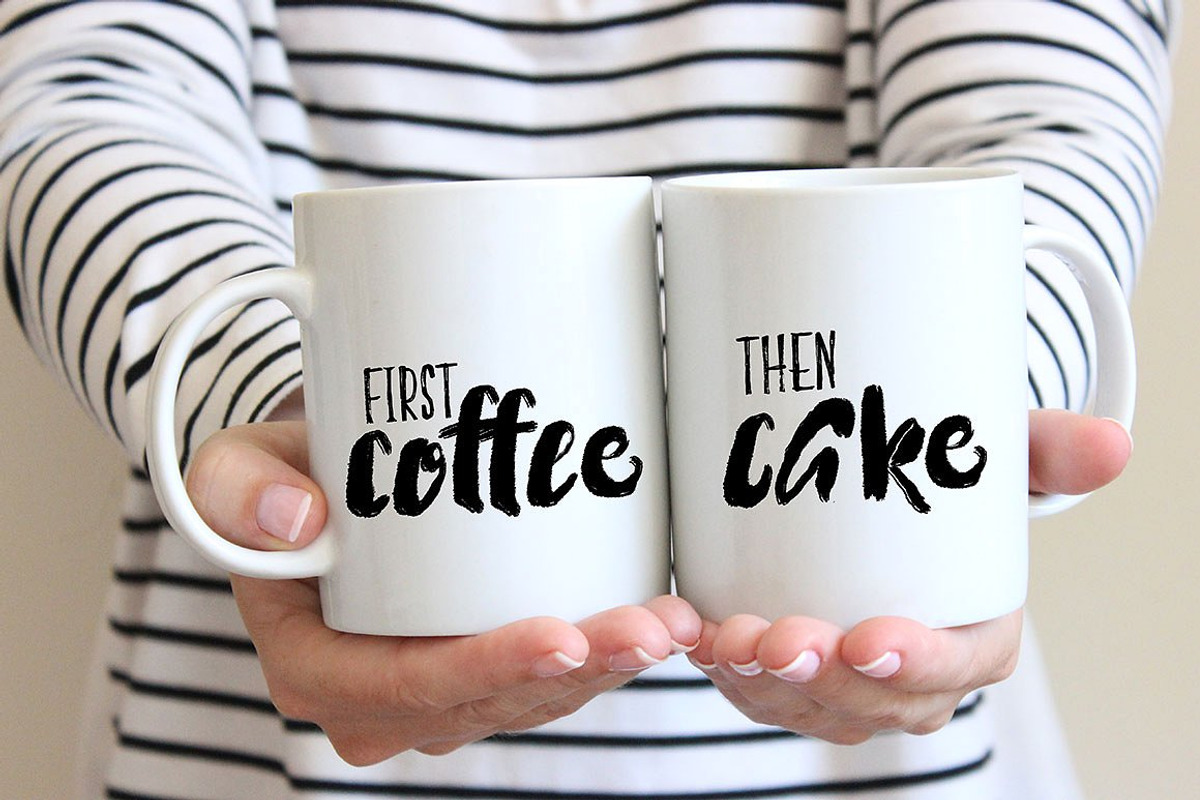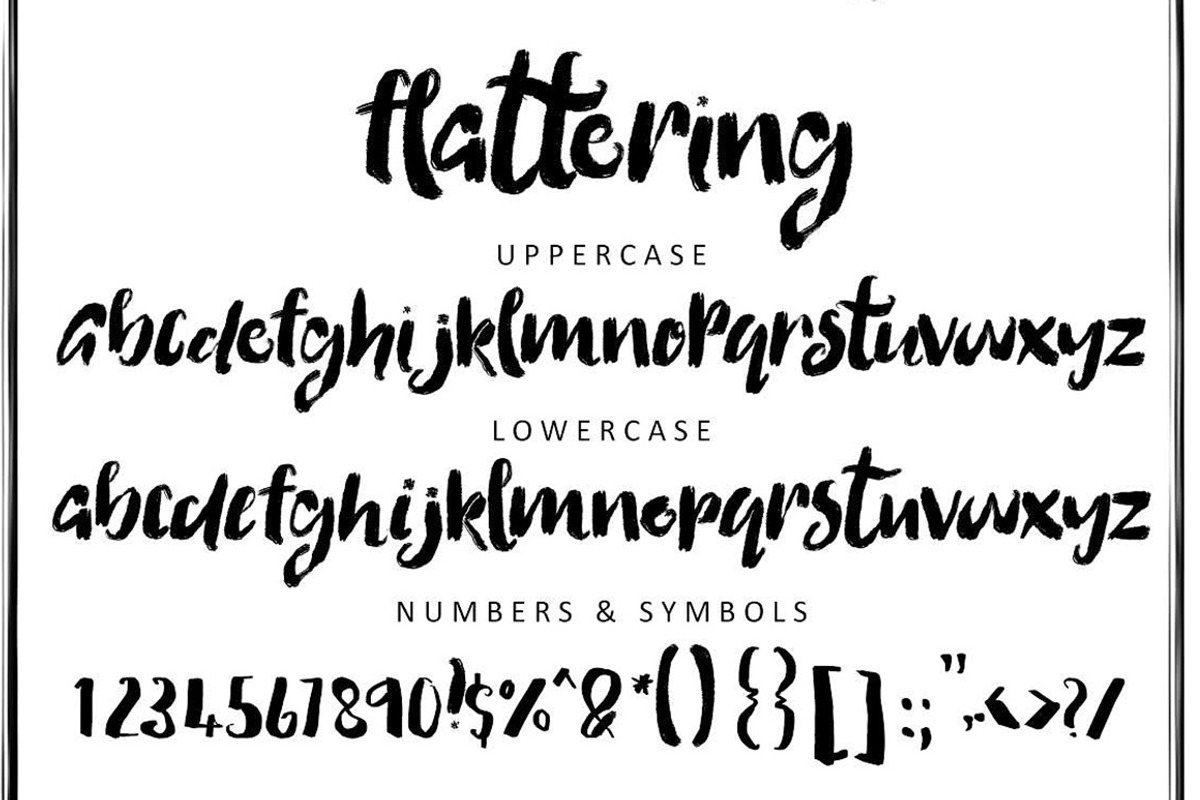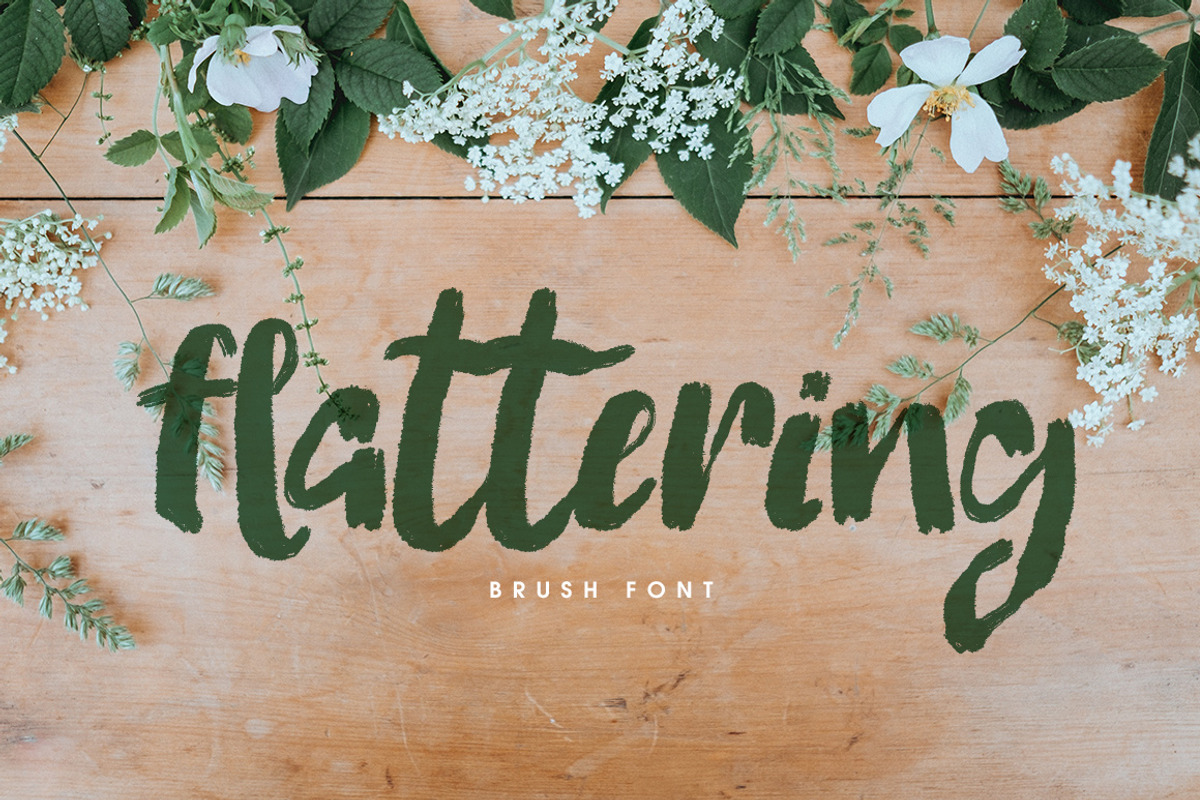
Flattering Font
This is Flattering. A cool hand drawn brush font. This font is part of the Big Bunch of Fonts Volume 2 here
Why Flattering Font is worth a look
Flattering Font by Creativeqube Design fits naturally into Branding, posters, packaging, typography.